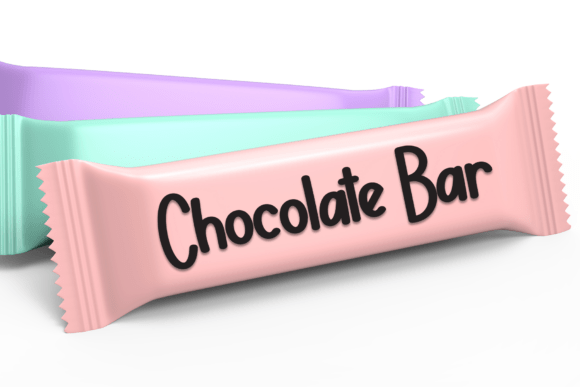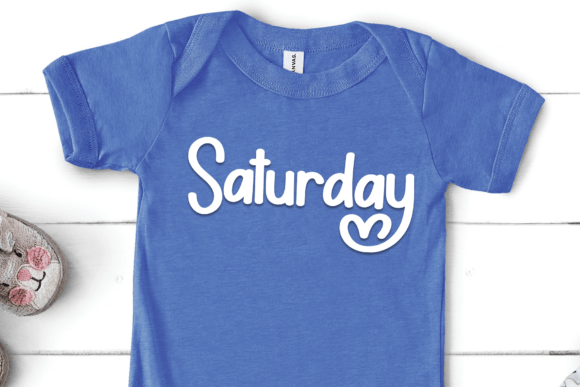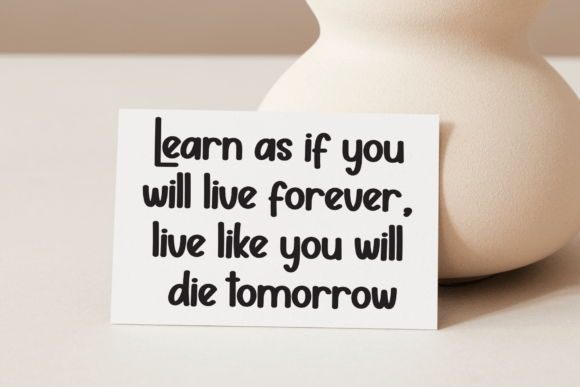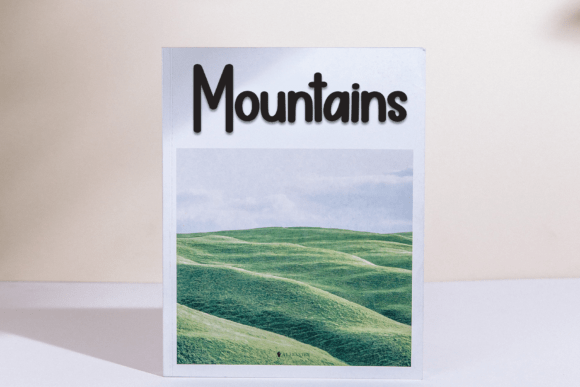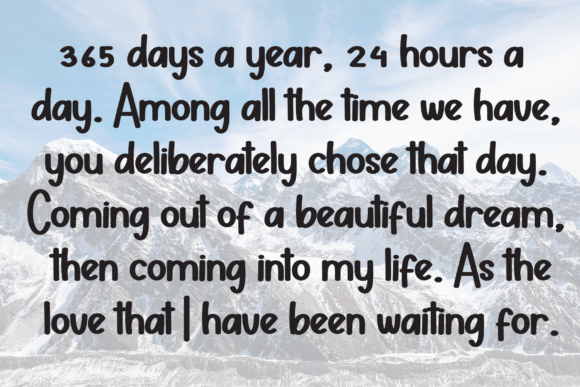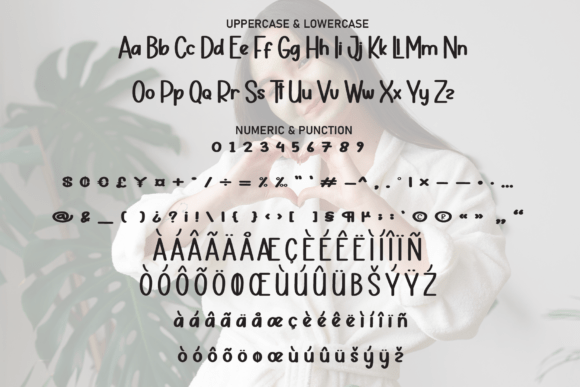
Introducing Heart Beauty Font: The Perfect Blend of Freshness and Friendliness
In the world of typography, fonts play a crucial role in conveying the tone and personality of a brand or design. For designers and crafters looking for a font that exudes a fresh, friendly vibe, Heart Beauty Font is an excellent choice. This casual and neat display font is designed to add a touch of charm and clarity to various projects, making it perfect for packaging, posters, social media graphics, and more.
Clean Lines and Relaxed Structure: The Hallmark of Heart Beauty Font
One of the standout features of Heart Beauty Font is its clean lines and relaxed structure. The font’s design is characterized by a sense of simplicity and elegance, making it easy to read and understand. The clean lines ensure that the text is clear and legible, while the relaxed structure adds a touch of friendliness and approachability. This unique combination makes Heart Beauty Font an excellent choice for designers who want to create a lasting impression.
Heart Beauty Font is a versatile font that can be used for a wide range of design projects. Its fresh and friendly vibe makes it perfect for:
- Packaging: Add a touch of charm to your product packaging with Heart Beauty Font. The font’s clean lines and relaxed structure make it easy to read and understand, even on small packaging labels.
- Posters: Create eye-catching posters with Heart Beauty Font. The font’s bold and clear design ensures that your message gets across effectively.
- Social Media Graphics: Use Heart Beauty Font to create engaging social media graphics that capture the attention of your audience. The font’s friendly vibe makes it perfect for social media posts, stories, and ads.
The Benefits of Using Heart Beauty Font
Using Heart Beauty Font in your design projects offers several benefits, including:
- Improved Readability: The font’s clean lines and relaxed structure ensure that your text is easy to read and understand.
- Increased Engagement: The friendly and approachable design of Heart Beauty Font helps to engage your audience and create a lasting impression.
- Versatility: Heart Beauty Font can be used for a wide range of design projects, making it a valuable addition to your font library.
- Polished Appearance: The font’s polished appearance ensures that your designs look professional and of high quality.
Tips for Using Heart Beauty Font Effectively
To get the most out of Heart Beauty Font, here are some tips to keep in mind:
- Use it for Headings and Titles: Heart Beauty Font is perfect for headings and titles. Use it to create eye-catching headlines that capture the attention of your audience.
- Experiment with Colors: Heart Beauty Font looks great in a variety of colors. Experiment with different colors to find the one that best suits your design.
- Pair it with Other Fonts: Heart Beauty Font can be paired with other fonts to create a unique and interesting design. Experiment with different font combinations to find the one that works best for your project.
In conclusion, Heart Beauty Font is a fresh and friendly display font that is perfect for designers and crafters looking for a font that exudes a sense of approachability and charm. Its clean lines and relaxed structure make it easy to read and understand, while its polished appearance ensures that your designs look professional and of high quality. Whether you’re working on packaging, posters, social media graphics, or any other design project, Heart Beauty Font is an excellent choice.